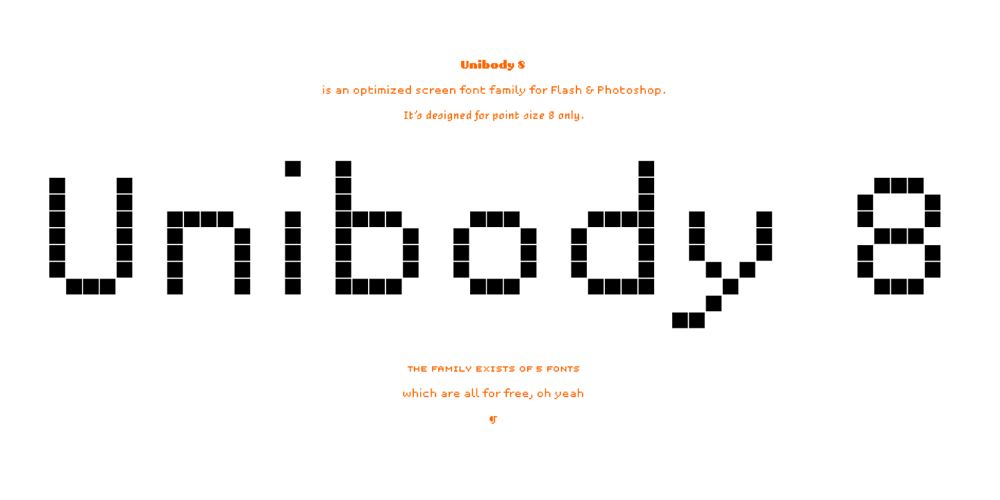
Unibody Pro Font Family was designed by Bas Jacobs, Akiem Helmling, Sami Kortemäki and published by Underware. Unibody Pro contains 5 styles and family package options. Unibody 8 is a cross-platform OpenType font that optimizes your screen performance at pixel point size 8. It is free to download from Underware. The Underware site also contains technical information, including how to use Unibody in Flash and Photoshop, and links to various websites where Unibody is used. Unibody comes with Underware’s infamous Latin Plus character set standard, pairing with exactly 219 languages. There’s also Arabic version existing, by Yanone.